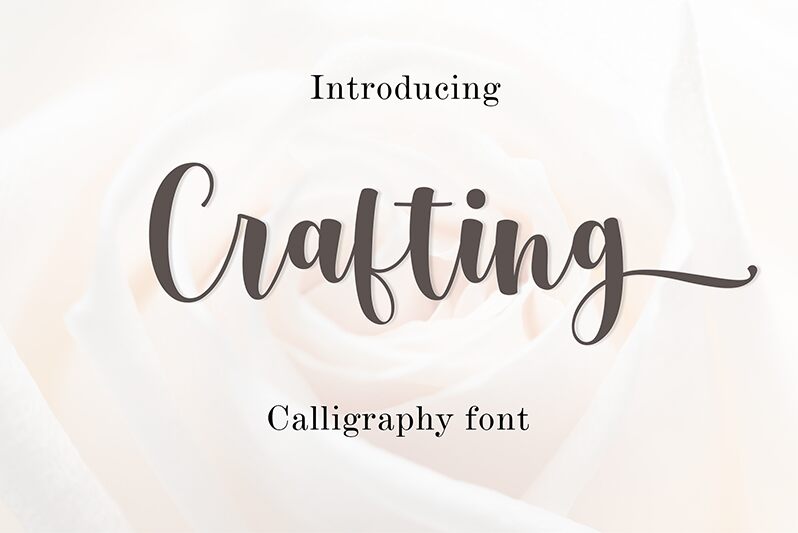
Crafting is a free script font designed by Amarlettering - Takiy. This typeface smoothly brings elegance and authenticity to any design. Its flowing and expressive style can beautify a contemporary project through an artistic, decorative, and sophisticated appearance.
Font Crafting is a wonderful choice for wedding invitations or boutique branding. Add it to posters, magazines, menus, packaging designs, or greeting cards. This eye-catching, cursive font family can also excel in presentations and modern websites. As a versatile and high-quality typeface, it will comfortably sit in design work aiming for the highest of standards.